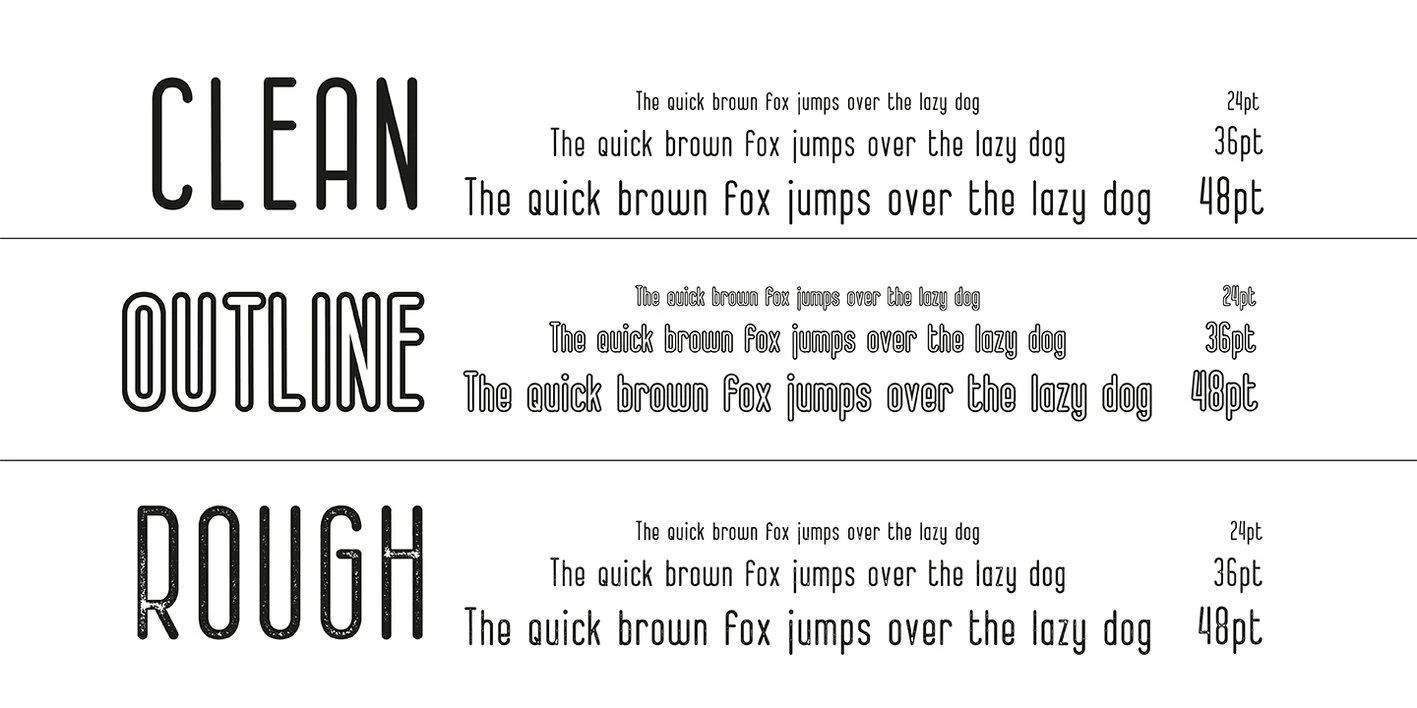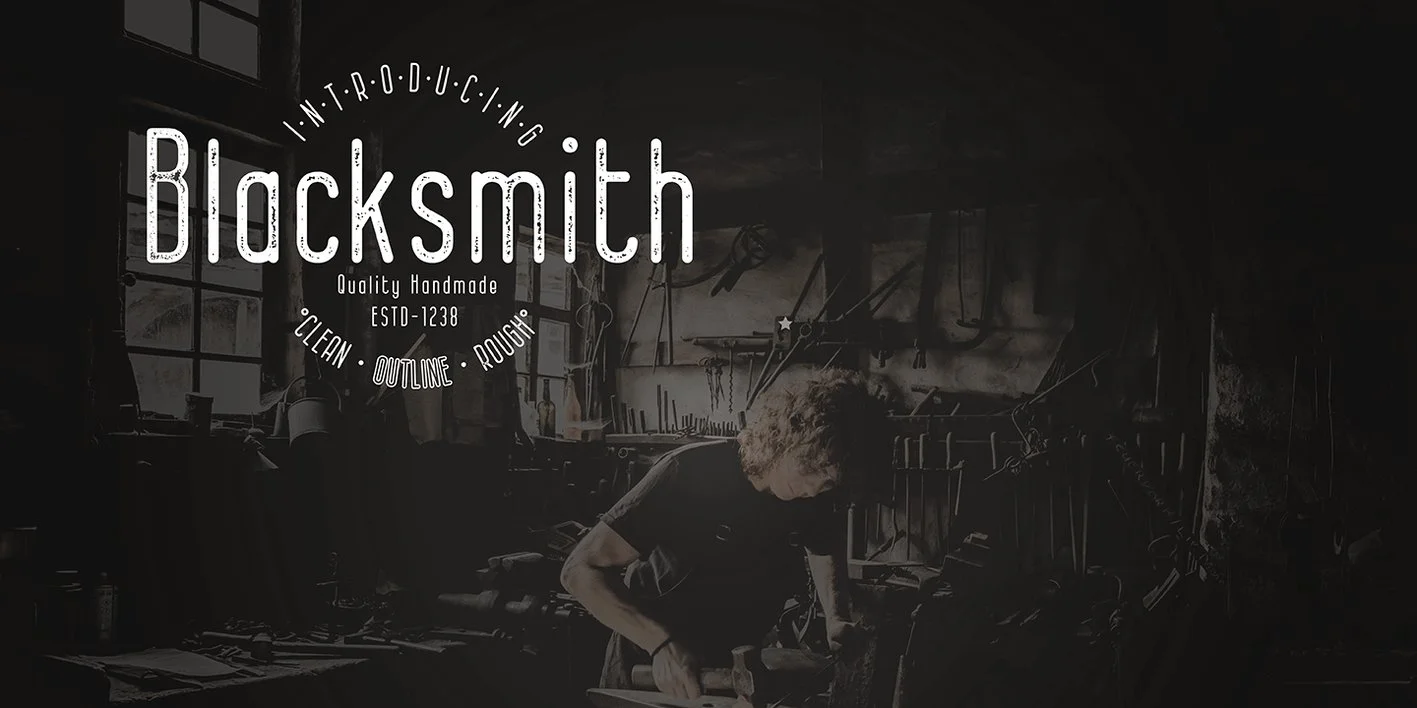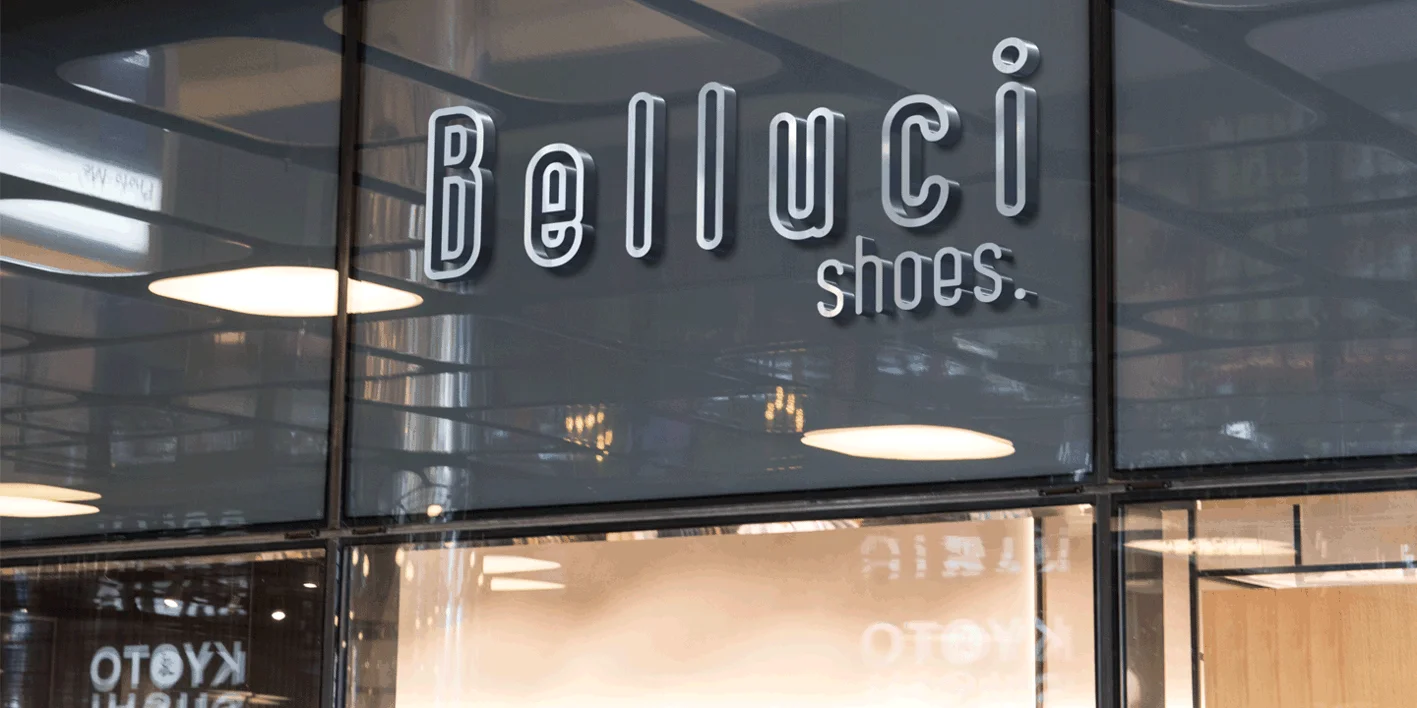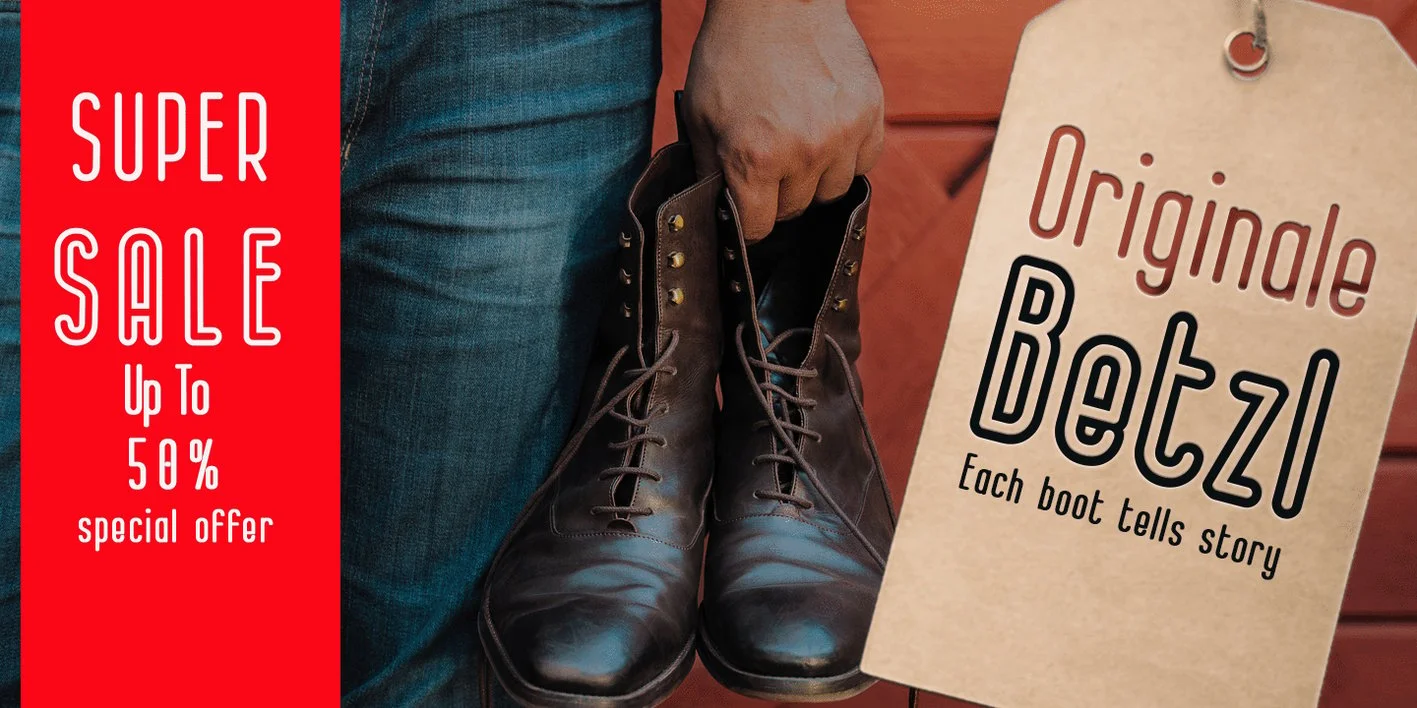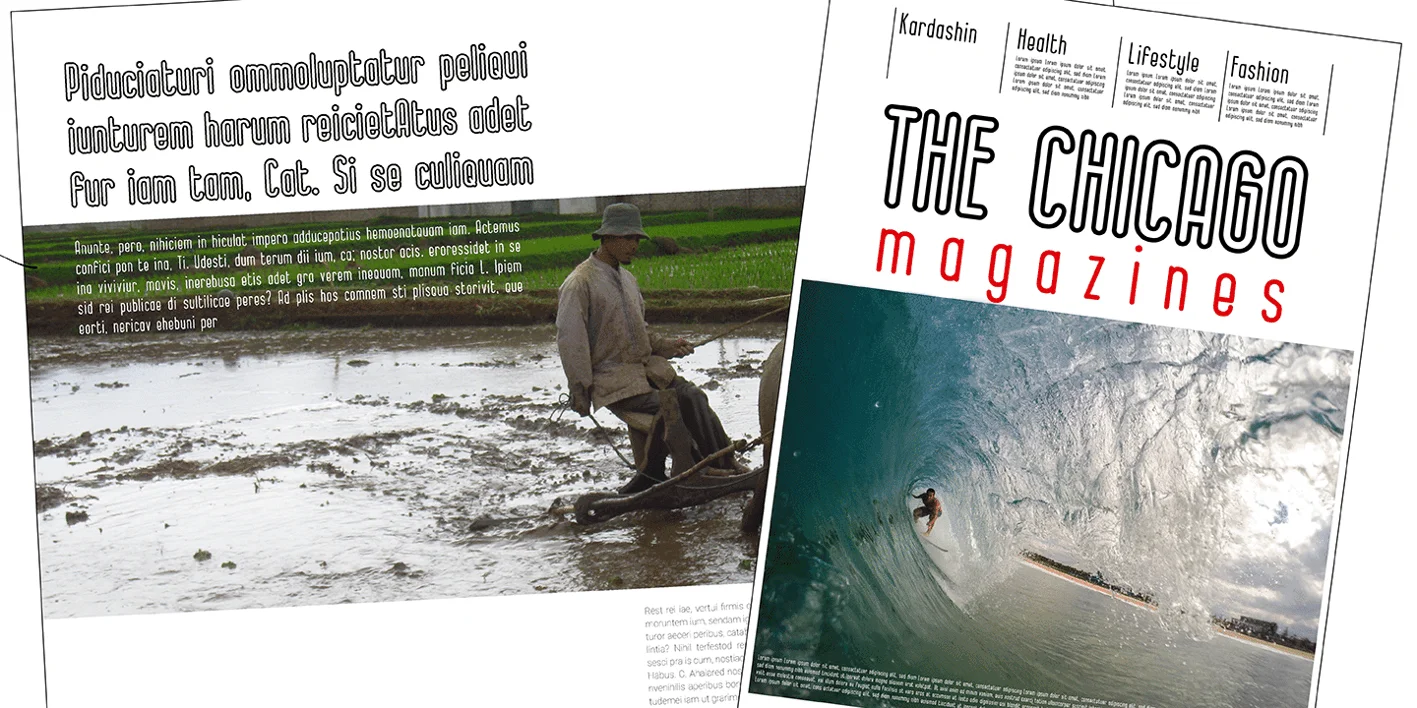
Bernound Font
Few typefaces manage to balance visual harmony and precise spacing with genuine day-to-day practicality. Bernound is one of them. The typeface brings a versatile sensibility to a broad range of creative disciplines, with controlled contrast that rewards close inspection that holds up whether the work is print-first or screen-first.
In practice, Bernound proves particularly effective for web design, advertising campaigns, social media graphics, packaging design, signage systems. Designers reaching for it find that the type decisions feel resolved rather than laboured — a useful quality when client timelines are tight.
The range of applications extends to poster creation, environmental graphics, brand identity systems, annual reports. That breadth is deliberate: the proportions and spacing were stress-tested across a wide range of mock briefs before the typeface was finalised.
Freelance designers across print and digital disciplines find Bernound a reliable choice for projects that demand both personality and restraint. The design avoids the self-conscious quirkiness that dates quickly, settling instead for considered distinctiveness that holds up over time.